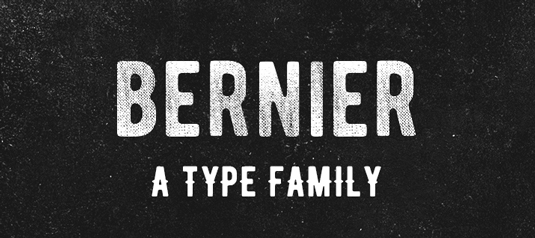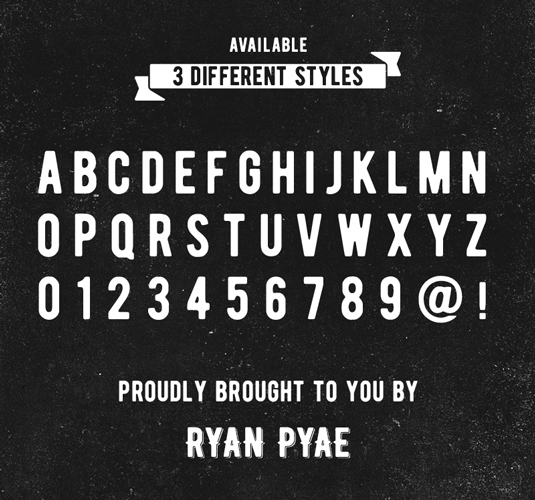
Font of the day: Bernier
Bernier by Ryan Pyae
Senior graphic designer Ryan Pyae is the man behind today's typeface of choice Bernier. An uppercase only design, Bernier is perfect for any vintage-style design.